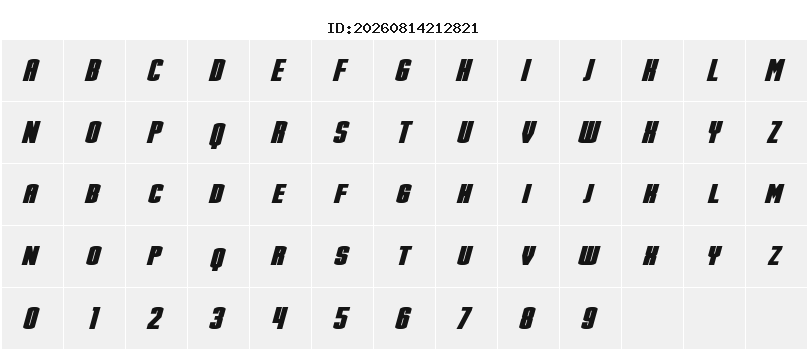
Stark Preview
• Font Name: Stark
• Font ID: Stark Bold Italic:Version 1.10
• Full Font Name: Stark Bold Italic
• Version: Version 1.10 June 29, 2014
• PostScript Name: Stark-BoldItalic
• Designer: Neale Davidson
• Manufacturer: Neale Davidson
About Stark.otf
Stark.otf is a modern, elegant sans-serif font designed for ultimate readability and visual harmony. Perfect for branding, headlines, web design, and print materials.